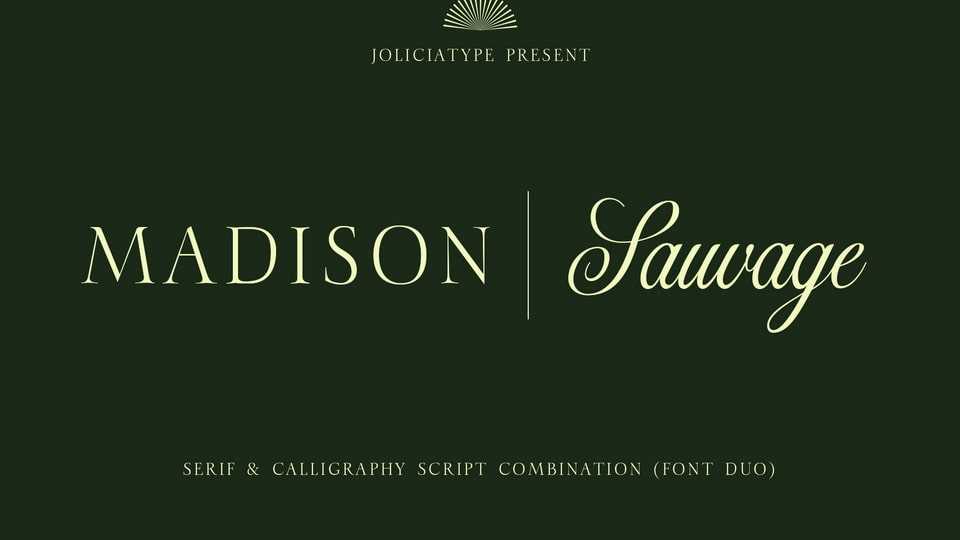
Download Madison Sauvage font, an elegant fusion of classic serif structure and graceful calligraphic script, carefully crafted to evoke a sense of refined heritage and timeless luxury.